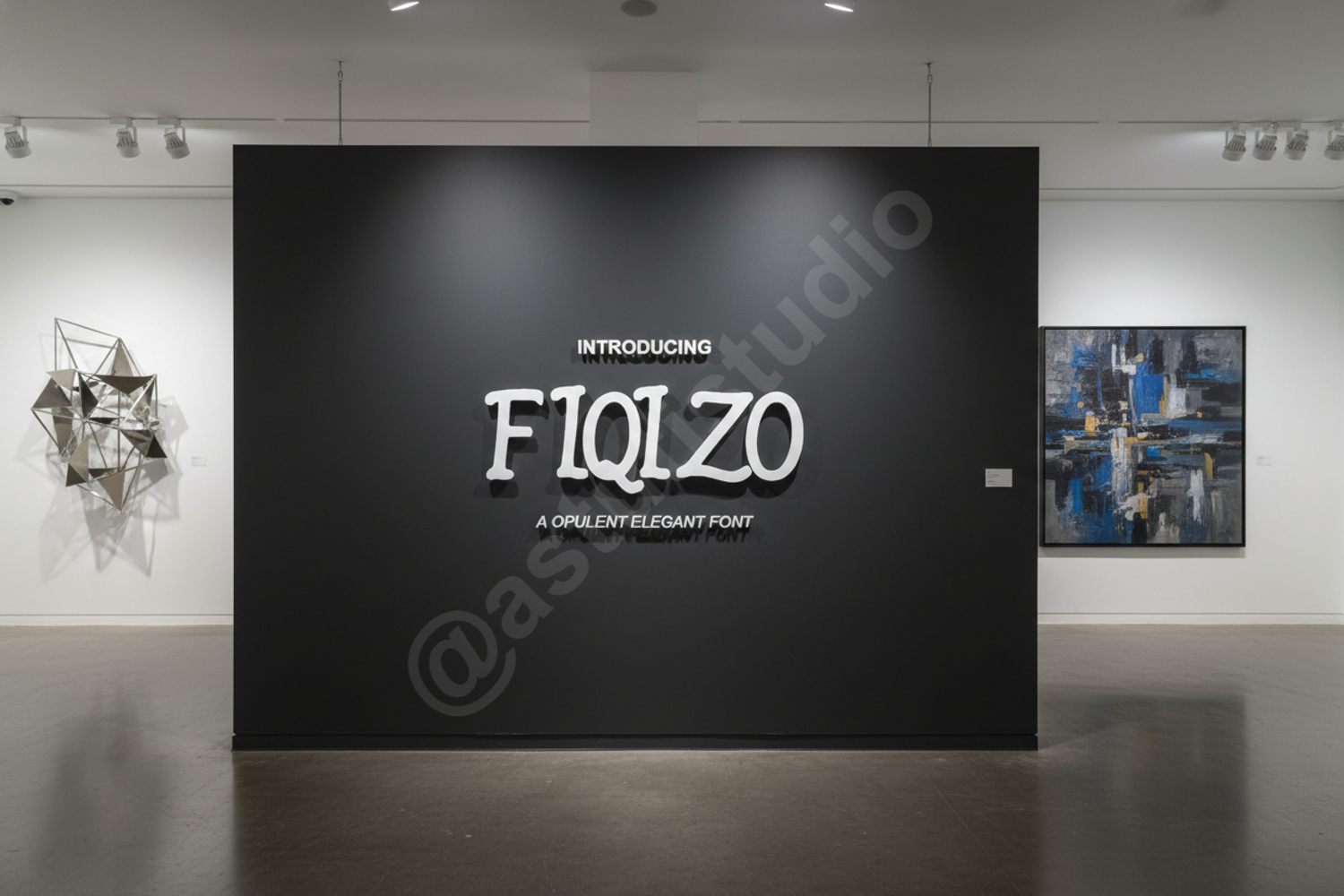
Fiqizo - Modern Sophisticated Serif Font
Fiqizo
Fiqizo is a premium serif font designed to blend timeless elegance with modern minimalist aesthetics. Its clean lines and unique character shapes make it a standout choice for designers looking to elevate their creative work with a touch of sophistication and high-end appeal.
- Luxury Branding and Logo Design: Create a memorable brand identity that exudes class and professionalism.
- Editorial Design: Perfect for high-end magazine layouts, book covers, and digital publications.
- Wedding Stationery: Add a refined and romantic touch to invitations, programs, and menus.
- Social Media: Elevate your digital presence with stylish typography for quotes and marketing graphics.
- Product Packaging: Ideal for beauty, fashion, and premium lifestyle products looking for a modern edge.